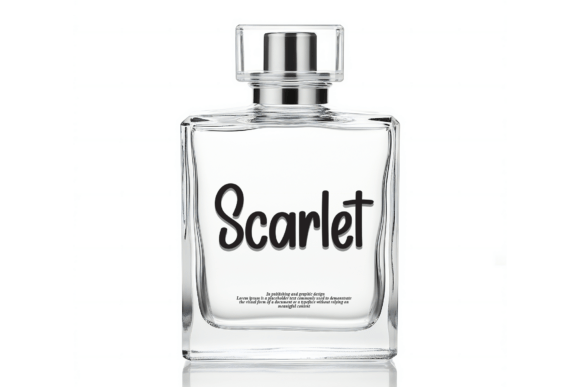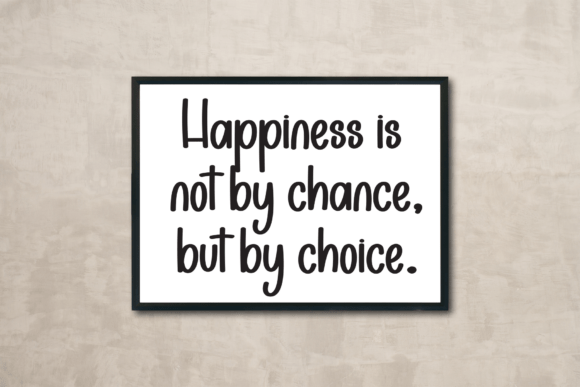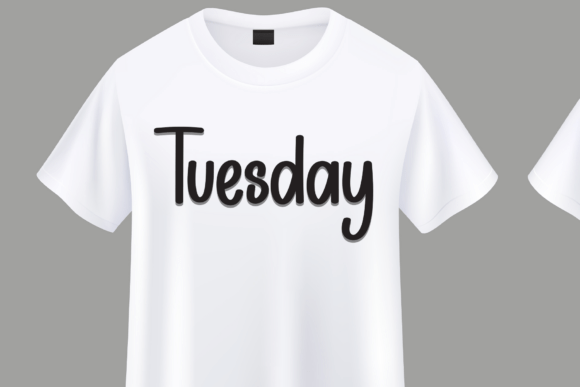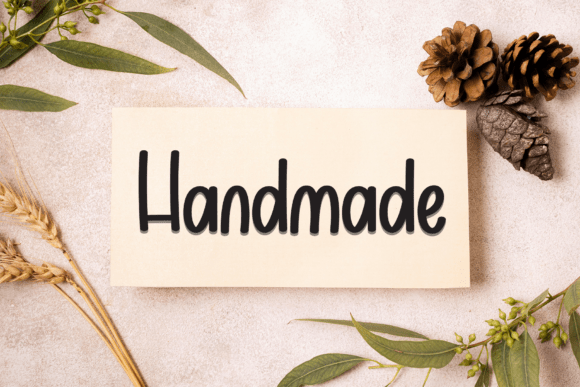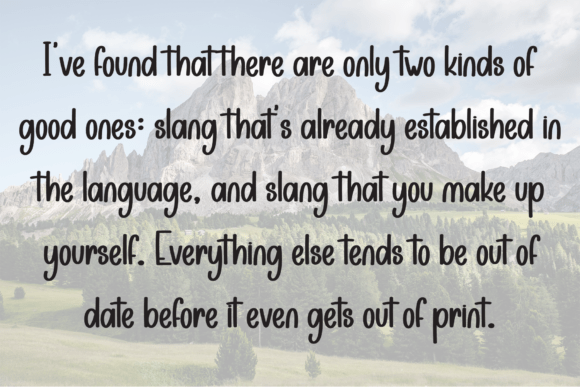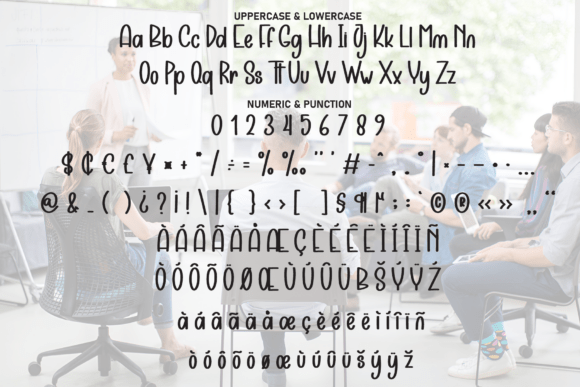
When Words Meet Warmth: The Power of Attending Font
Have you ever stumbled upon a font that perfectly captures the essence of your design vision? It’s like finding that one special ingredient that brings all the elements together in harmony. For designers, this moment is a game-changer. And for those who’ve experienced it, you know the rush of excitement that comes with it.
Meet Attending Font, a beautiful display font designed to bring warmth and clarity to your projects. With its clean structure and approachable style, Attending Font is perfect for branding, headlines, and everyday designs. Its balanced letterforms offer readability and charm, making every message feel genuine and inviting.
As a valuable addition to your design toolkit, Attending Font is sure to elevate your projects and leave a lasting impression on your audience.
Key Features of Attending Font
- Unique Characteristics: Attending Font features a unique, elegant design with subtle flair and curves, making it ideal for formal and professional applications.
- Language Support: Attending Font supports a wide range of languages, including Latin, Cyrillic, and Greek scripts, making it a versatile choice for global applications.
- Font Style: The font comes in a single style, with a regular weight, making it easy to use and consistent across different applications.
Attending Font Review
I recently had the chance to work with the Attending font, and I must say it’s been an interesting experience. Let’s dive into what I liked and what I didn’t.
- The Attending font has a unique, elegant feel to it. It’s perfect for designs that need a touch of sophistication.
- The font’s x-height is well-balanced, making it easy to read even at smaller sizes.
- The font family is quite extensive, with multiple weights and styles to choose from.
- The Attending font can feel a bit too ornate for certain projects. It’s not ideal for designs that require a clean, minimalist look.
- The font’s kerning can be a bit off at times, which can affect readability.
- The font family is not as extensive as some other popular fonts, which may limit its versatility.
Overall, I think the Attending font is a solid choice for projects that require a touch of elegance. However, it may not be the best fit for every design. With a bit of tweaking and attention to kerning, it can be a great addition to any font library.
The Attending font is ideal for:
- Event announcements and promotions
- Formal letterheads and business cards